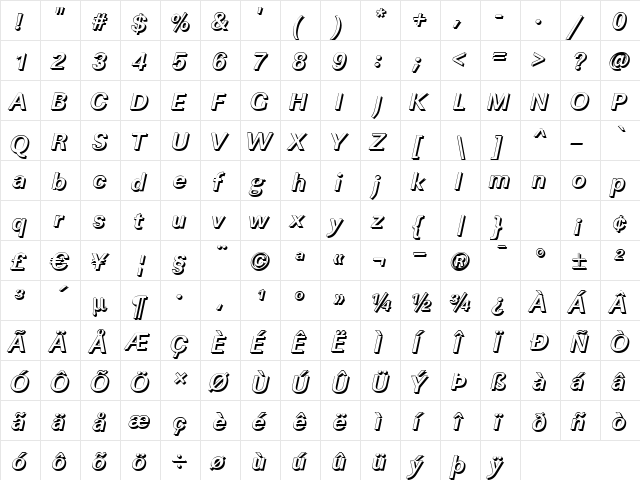
LinearSh BoldItalic
Design Context for LinearSh Typeface
LinearSh is a composed and adaptable typeface that performs quietly and consistently across a wide range of design contexts. The slanted form adds forward momentum and visual energy. The heavy weight commands attention and anchors typographic hierarchies.